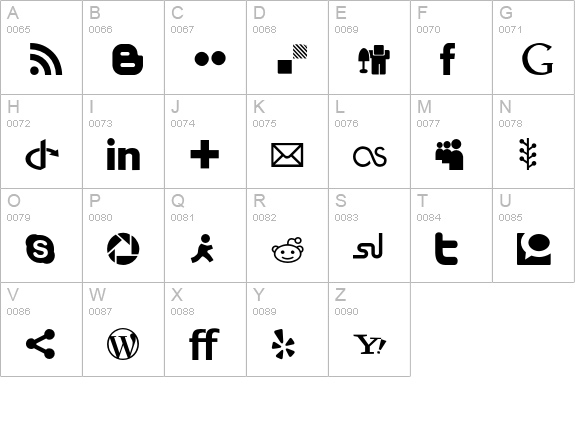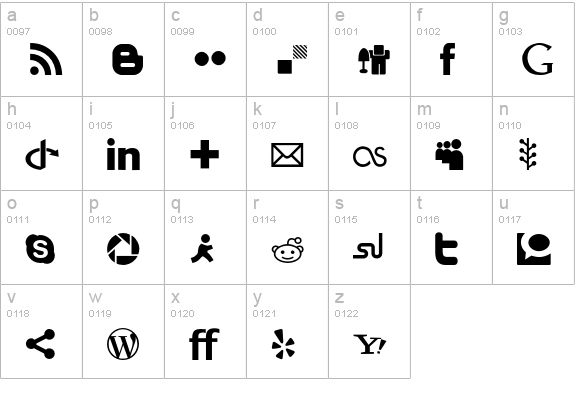
SocialIcons font is a trendy and versatile typeface that is perfect for adding a touch of style to your social media presence. With its sleek and modern design, this font is sure to catch the attention of your audience and make your content stand out. Whether you're creating eye-catching social media posts, designing a website, or crafting a stunning logo, SocialIcons font has got you covered. But the best part? It's absolutely free! That's right, you can download SocialIcons font for free at FontsMarket.com. This means that you can enhance your designs without breaking the bank. Whether you're a professional designer or just starting out, this font is a must-have in your toolkit. SocialIcons font offers a wide range of icons that represent popular social media platforms such as Facebook, Instagram, Twitter, and more. This makes it incredibly easy for you to incorporate these icons into your designs and create a cohesive and visually appealing look. Not only is SocialIcons font visually pleasing, but it is also incredibly easy to use. With its user-friendly interface, you can quickly and easily access the icons you need and customize them to fit your design vision. Whether you want to change the color, size, or style of the icons, the options are endless. In addition to its aesthetic appeal and ease of use, SocialIcons font is also highly versatile. It can be used across a wide range of projects and industries, from fashion and beauty to technology and travel. No matter what your design needs are, this font is sure to elevate your work to the next level. So why wait? Download SocialIcons font for free at FontsMarket.com today and start adding a touch of style and professionalism to your social media presence. You won't be disappointed with the endless possibilities this font offers.